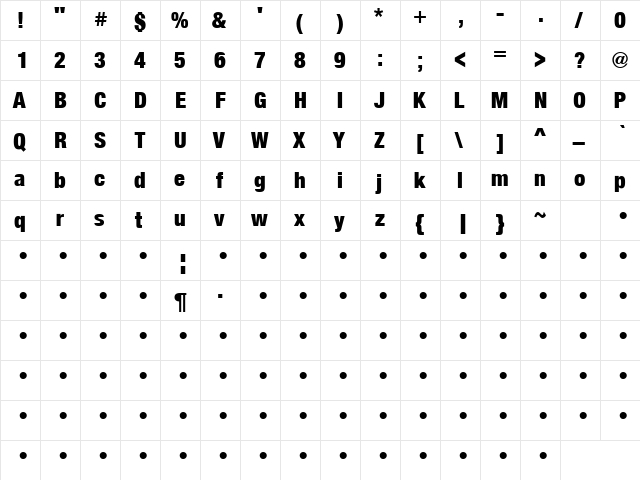
QTHelvetCnd-Black Regular
Design Context for QTHelvetCnd-Black Typeface
QTHelvetCnd-Black offers clean, dependable letterforms without strong stylistic allegiance, making it a practical choice for designers who need flexibility.